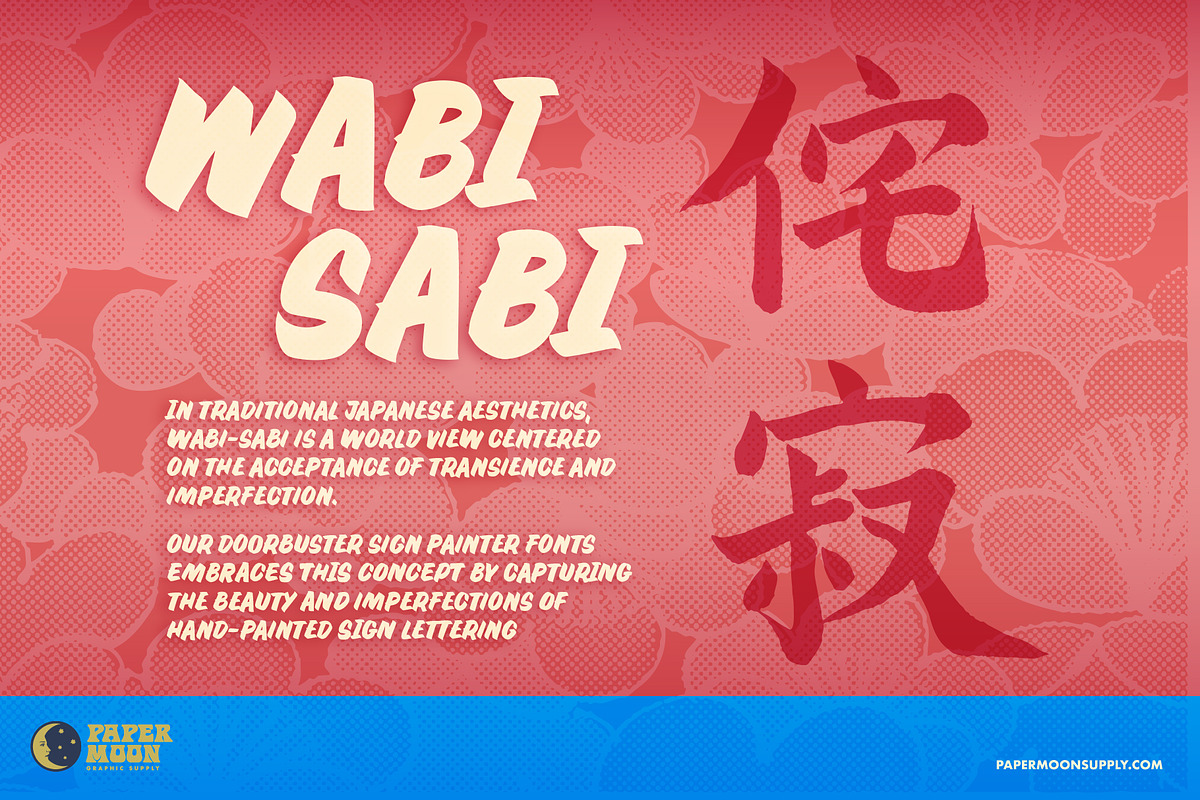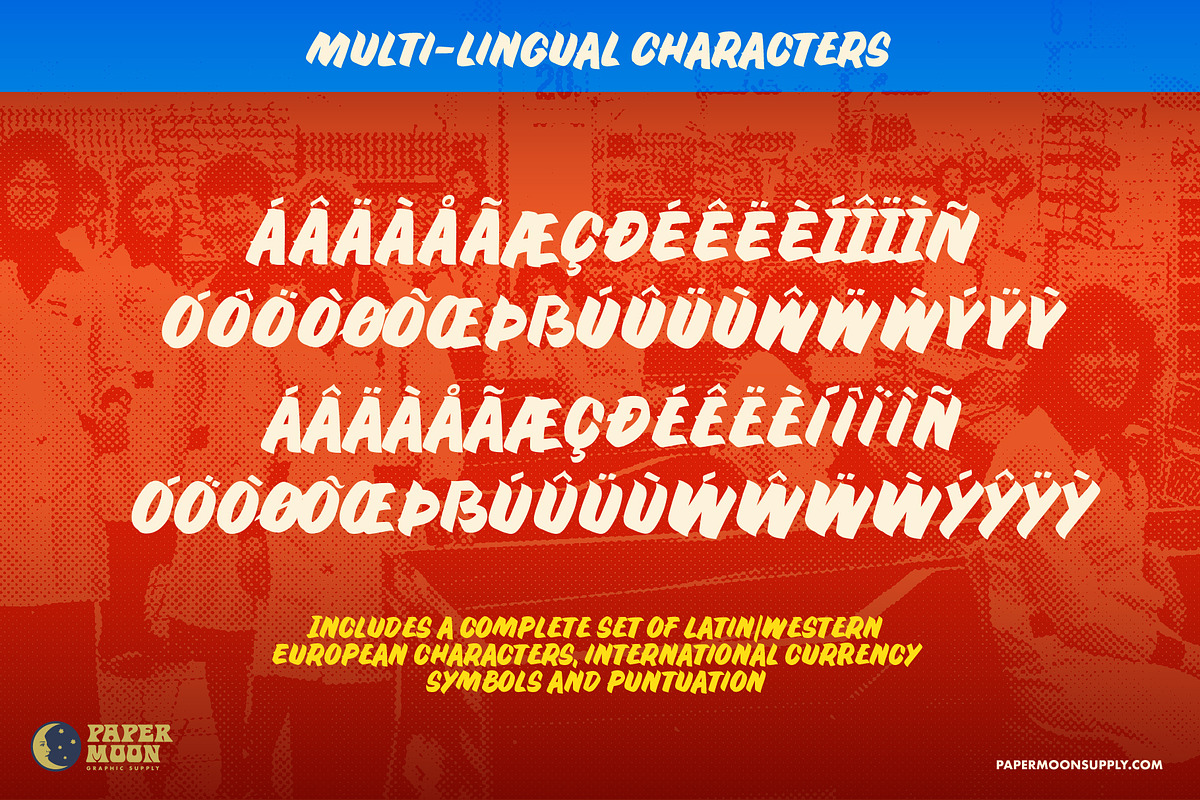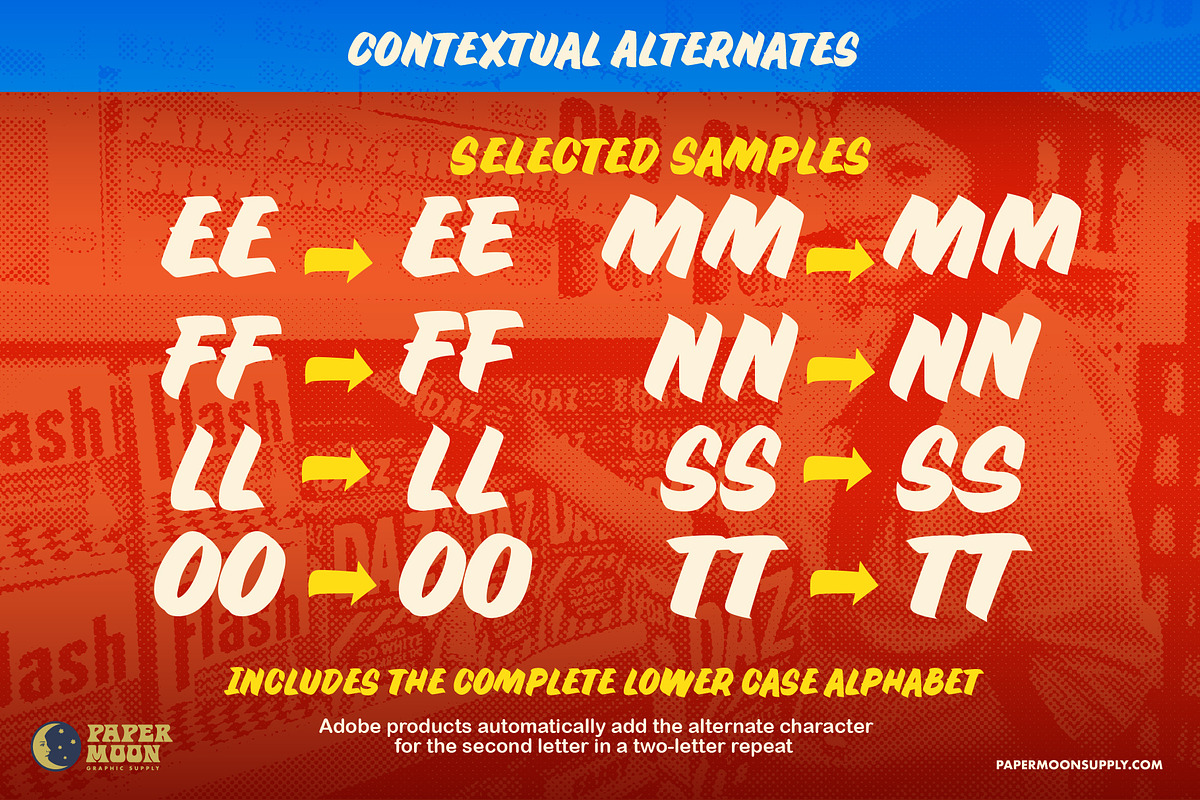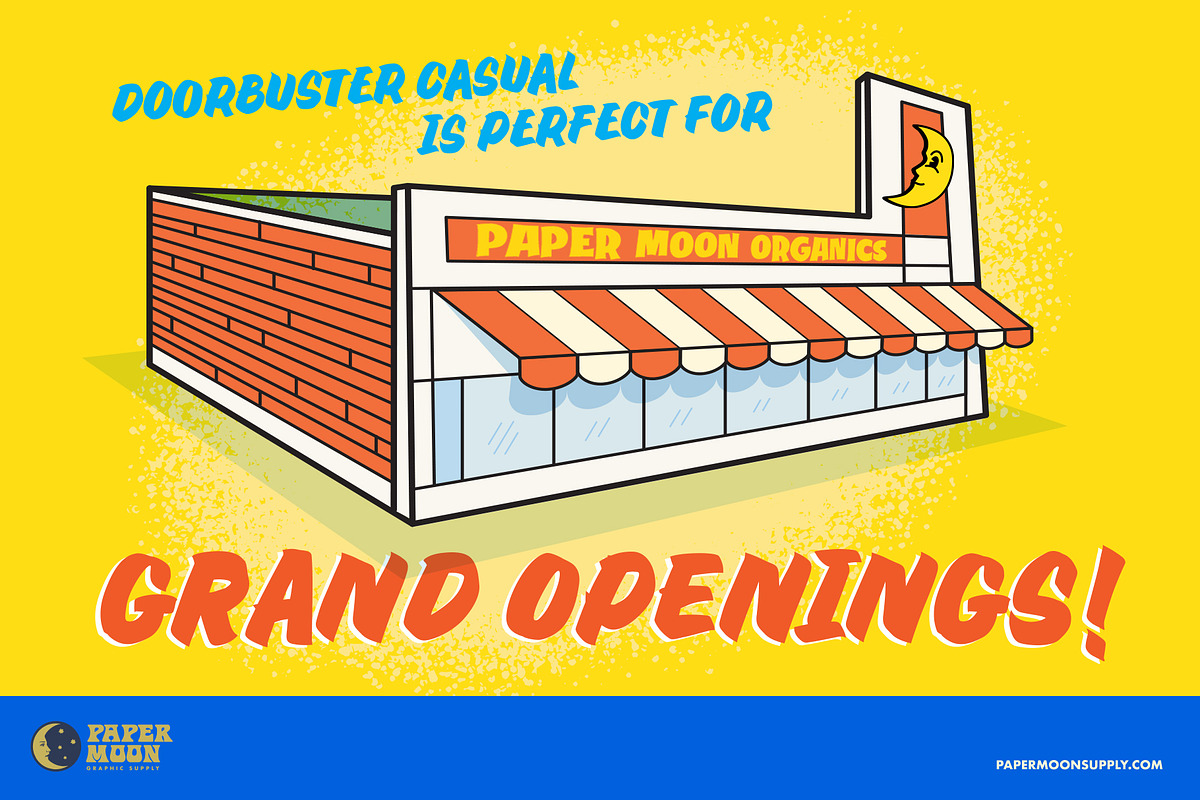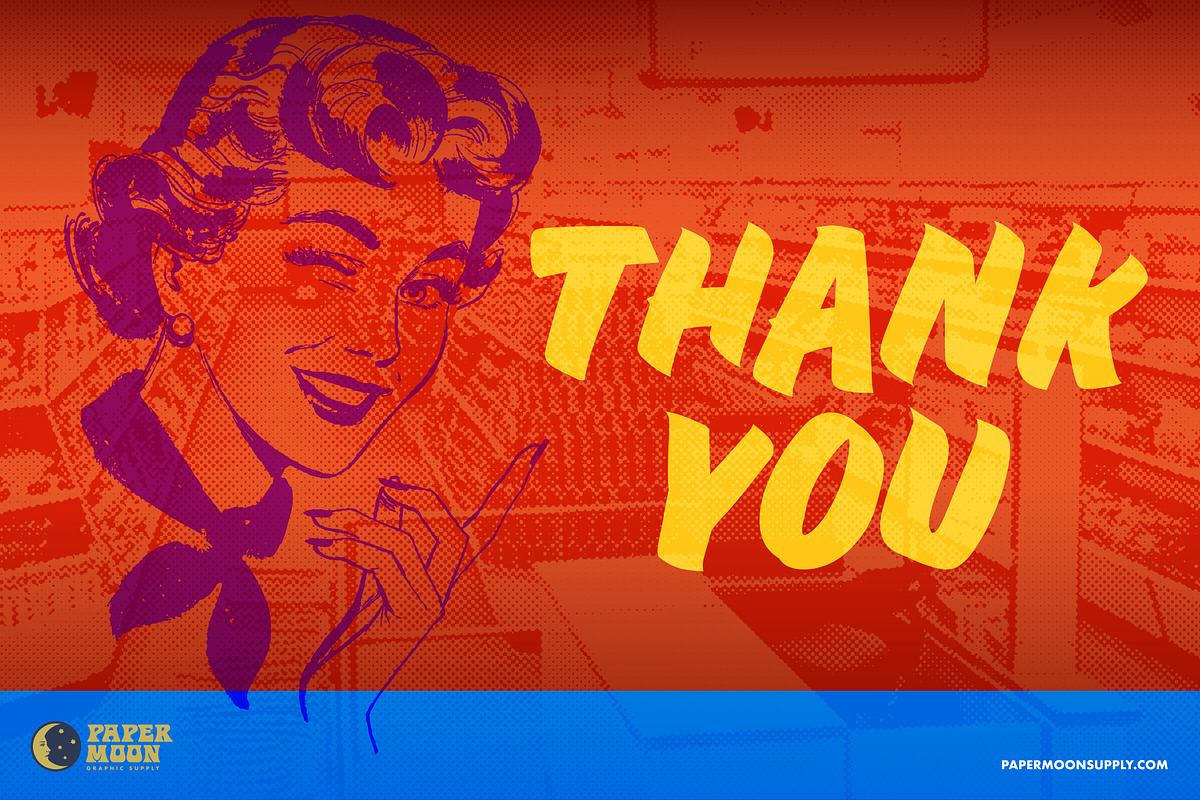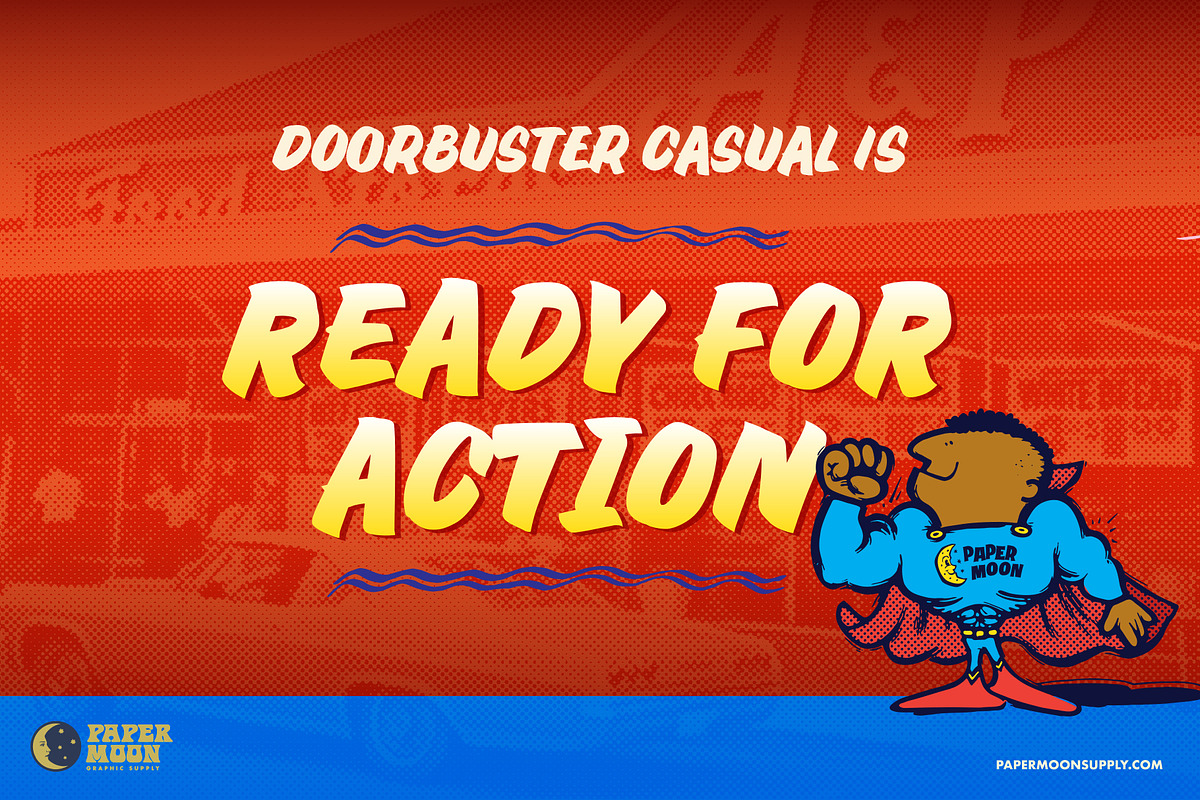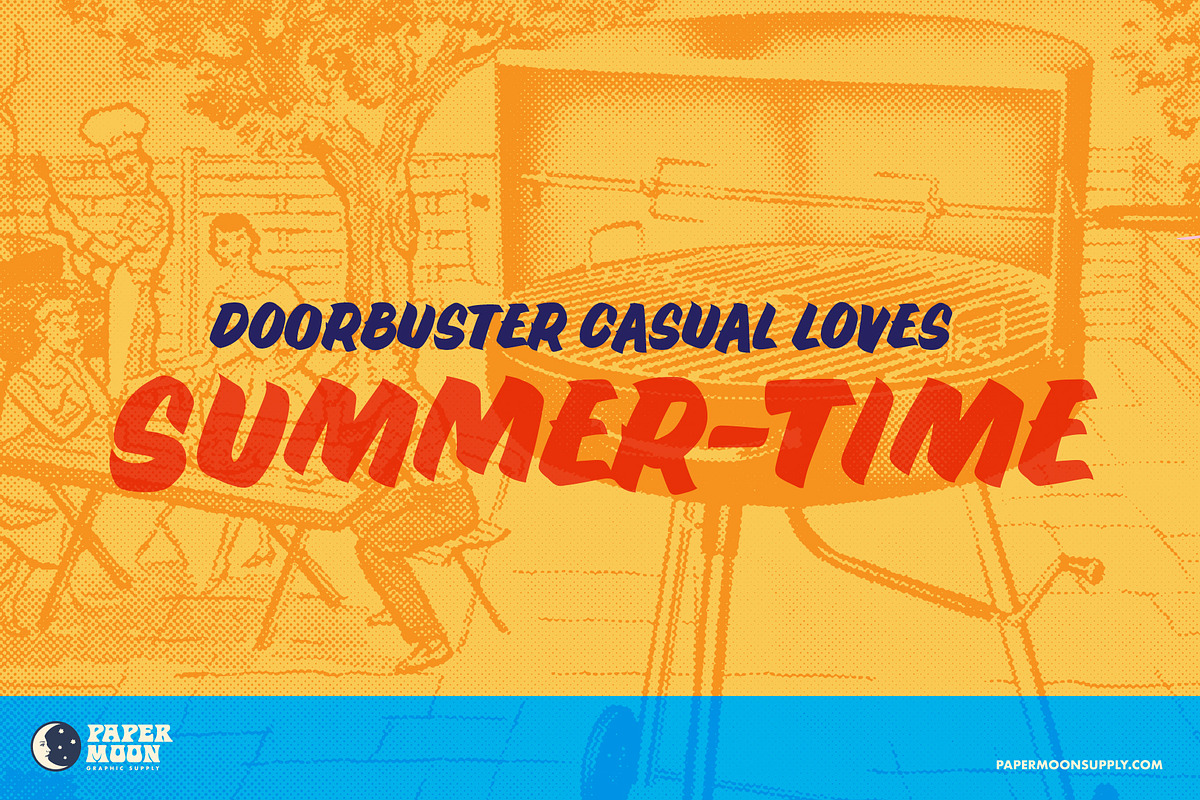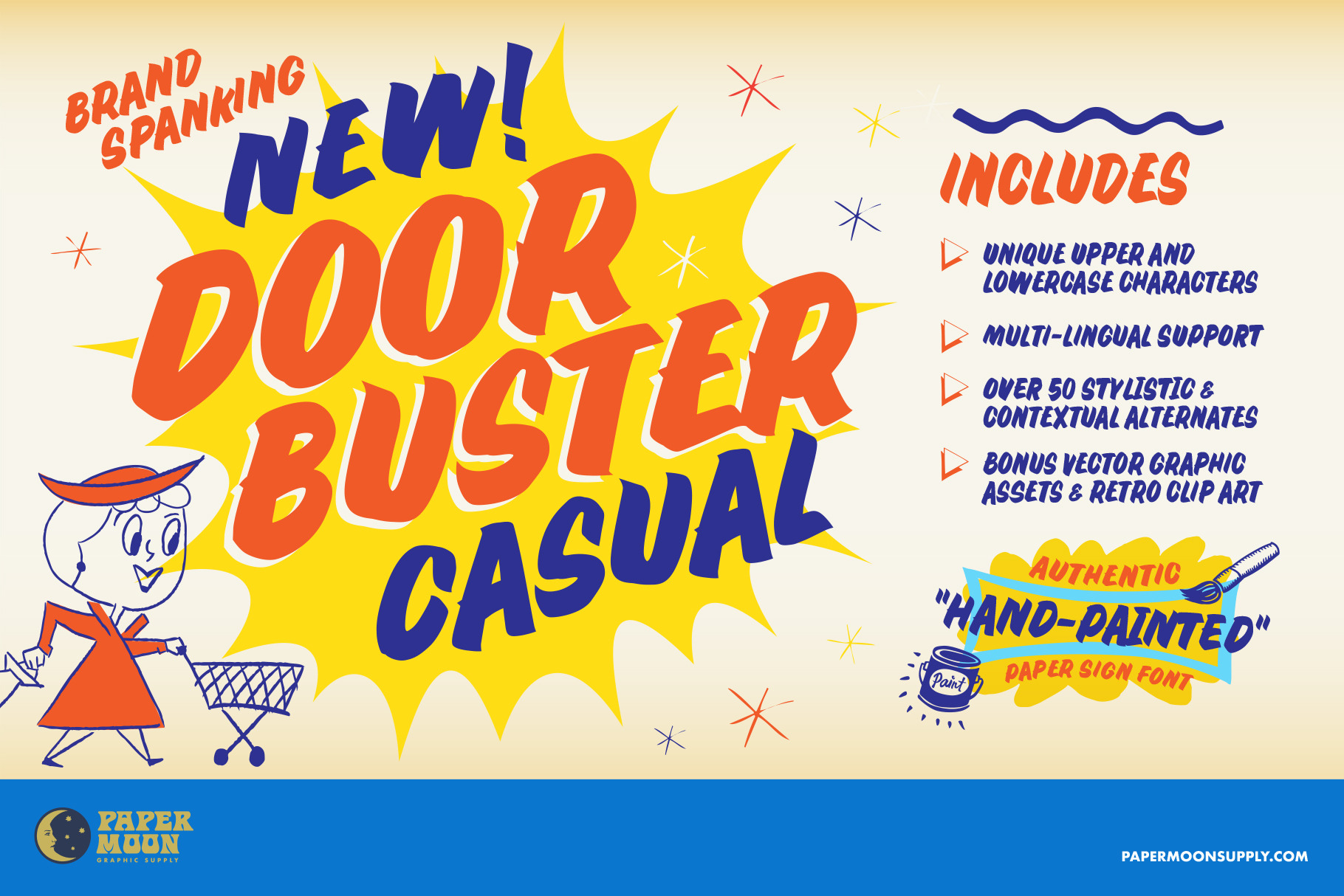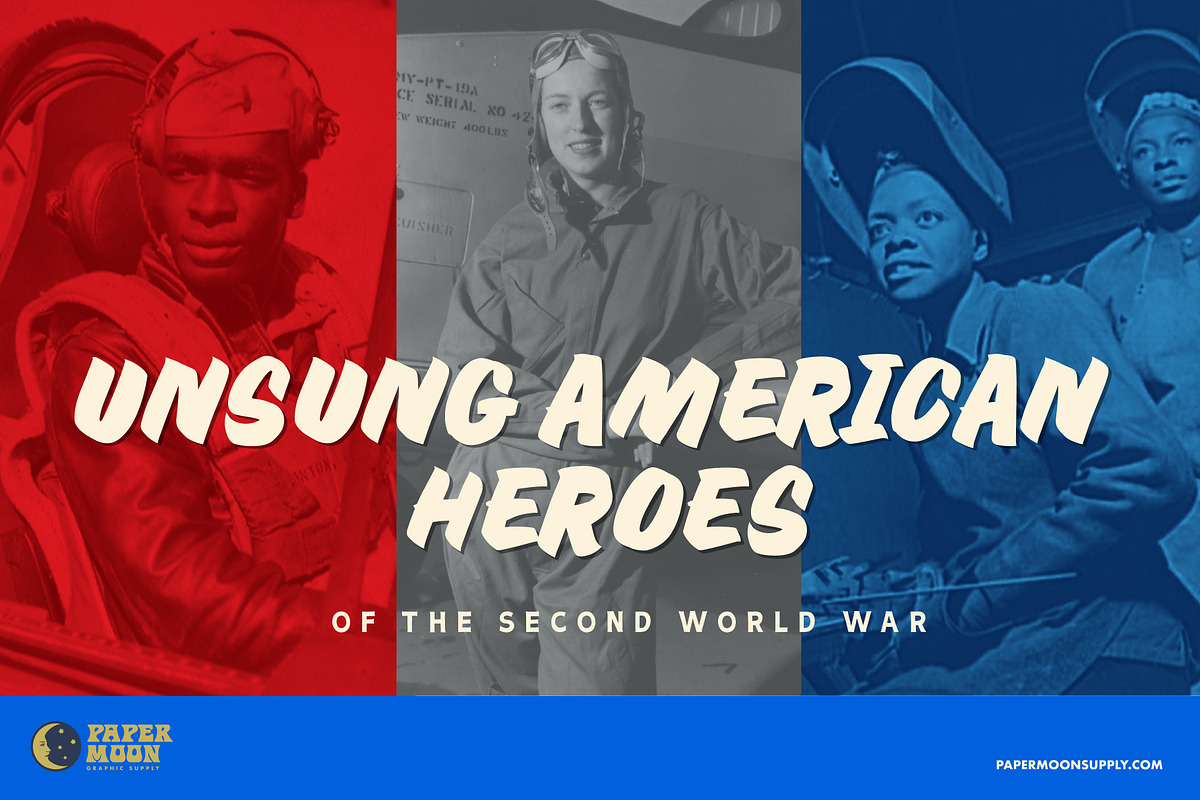
Doorbuster Casual Sign Painter Font
A new font inspired by vintage hand-painted paper signs.
The Doorbuster collection is based on retro hand-painted paper signs primarily seen in grocery stores from the 1940s through today. We meticulously hand-drew each font, modeling the spacing and uneven baseline found in vintage sign painting. The purposely organic ascenders and descenders, along with a huge set of ligatures/contextual alternates to avoid the same letters repeating when paired, give it a real hand-lettered look.
Doorbuster Casual is perfect for both vintage-inspired and contemporary marketing, branding, and packaging designs. It's a classic uppercase sign painter font that has been used from the 1950s thru today. You've probably seen hand-lettered versions used in tattoo studios, workshops, and chalkboard menus. Now it's available in a digital format with all of the authentic look and feel of actual hand-painted letters. Check out a few of the samples included in the thumbnails to see what can be done with it.
It also includes a set vector stock shapes and backgrounds from our exclusive Solo-Clips image collection.
- Hand-drawn with over 350 characters
- Includes alphanumerics and ligatures
Doorbuster Casual was designed by award-winning illustrator and designer Scott Banks. Scott created this font because he could never find a retro script that had . Now you can get this typeface for your personal arsenal.